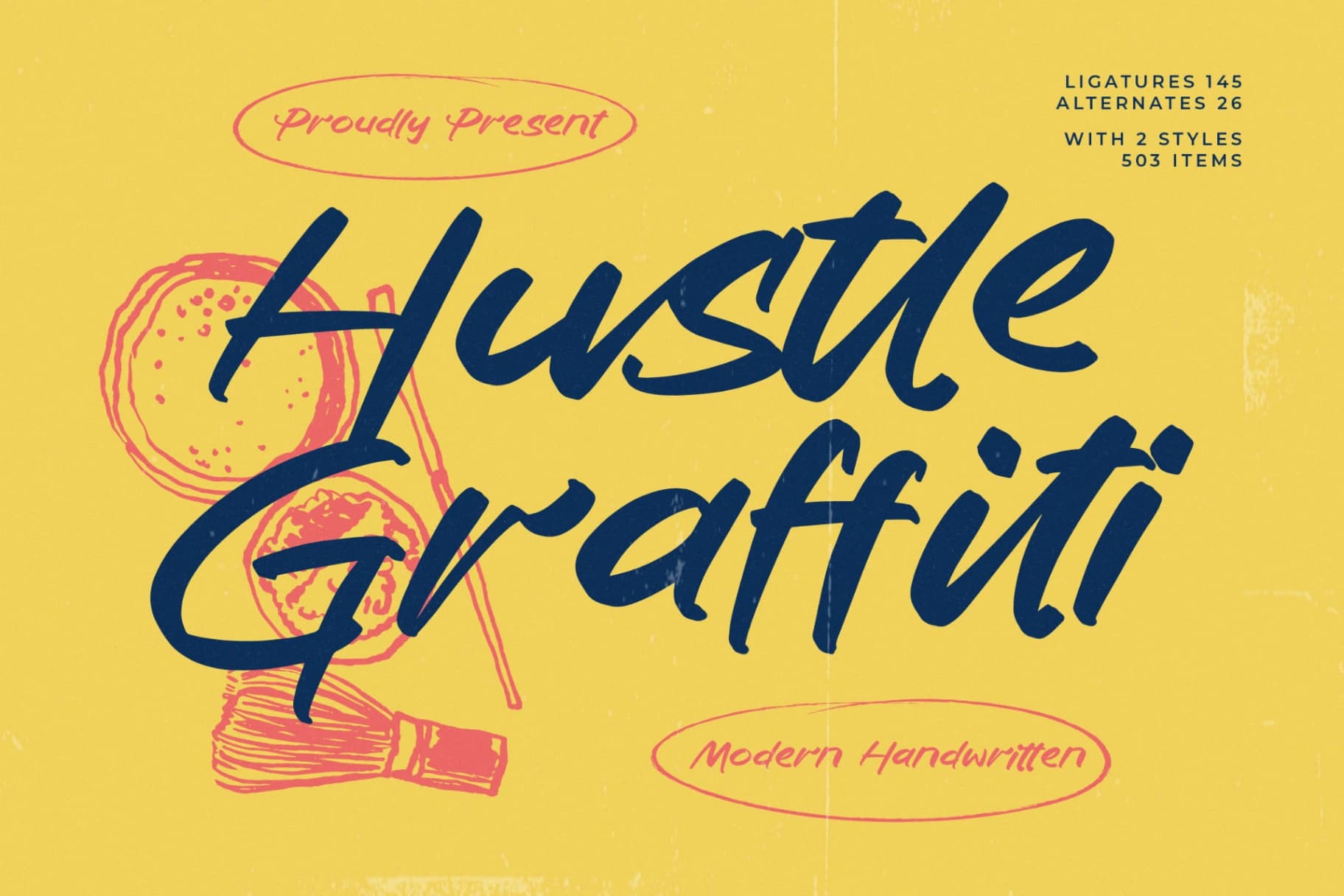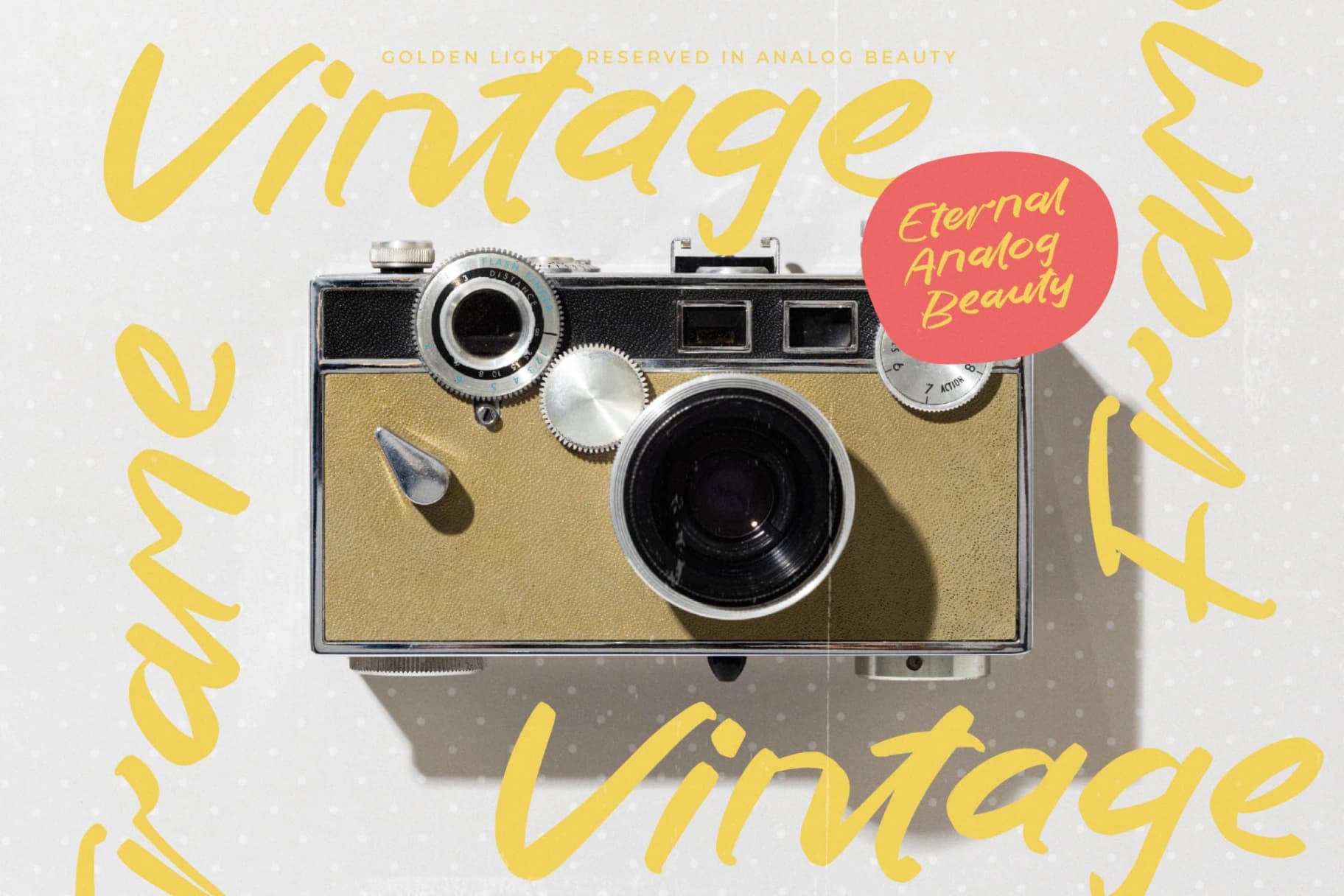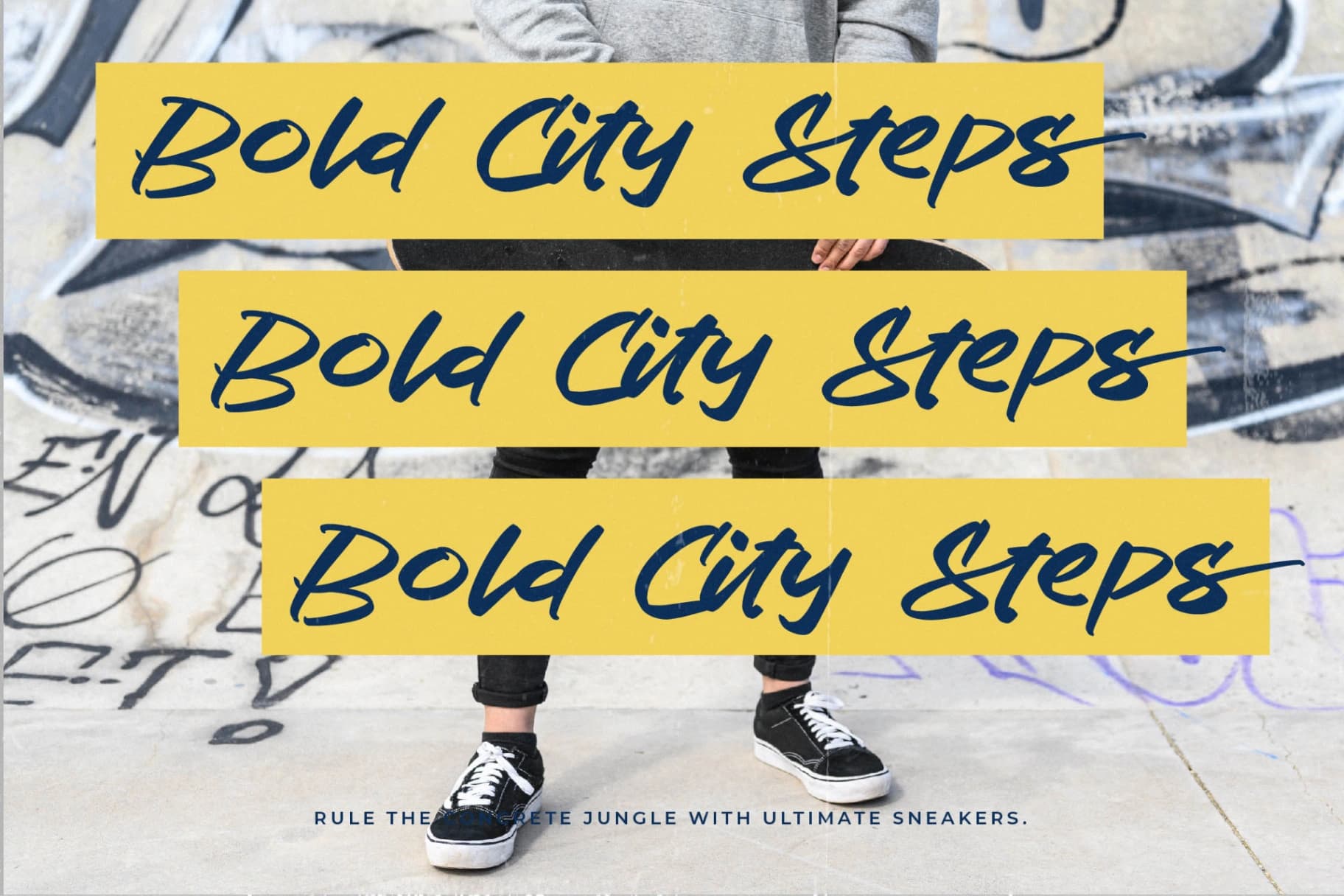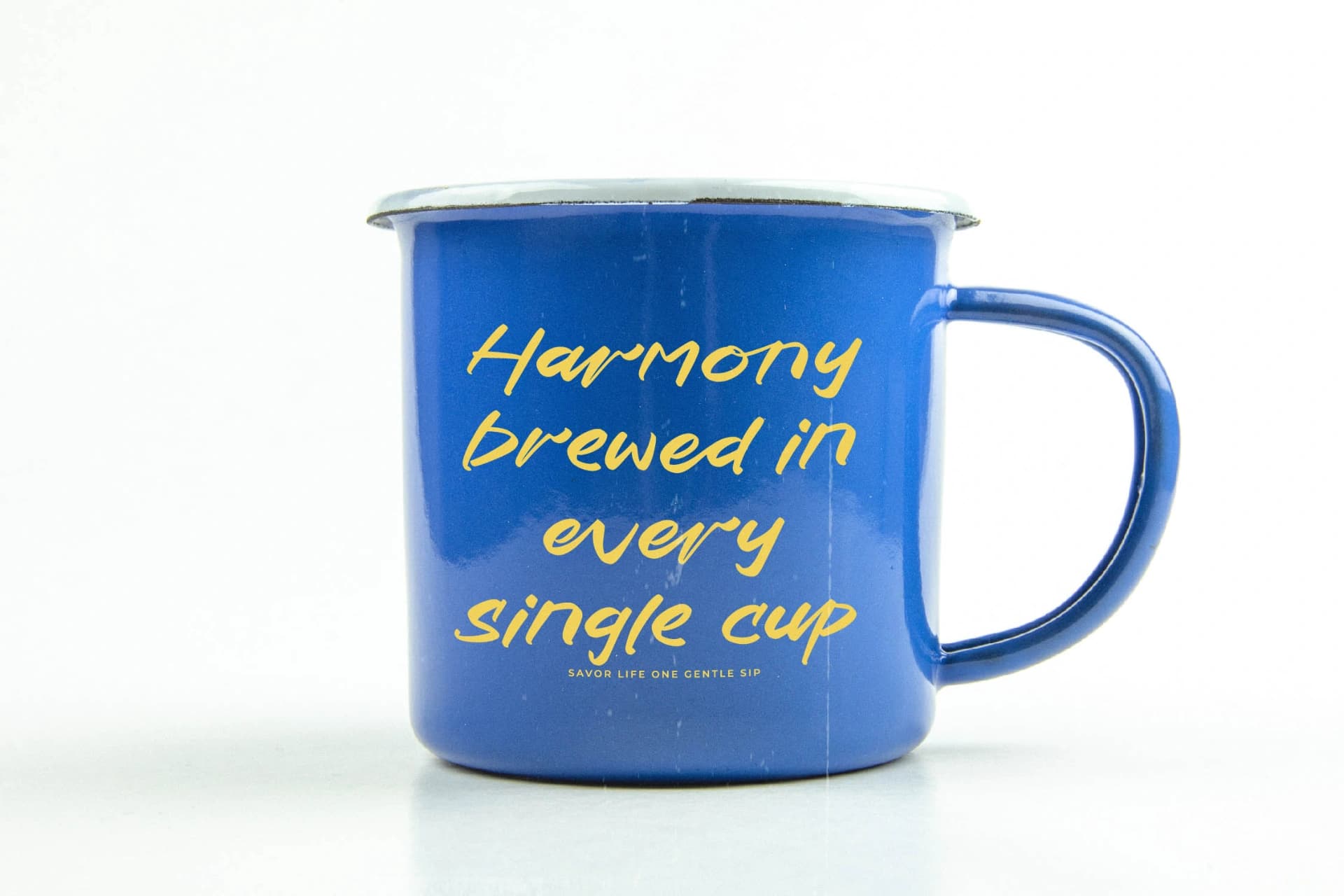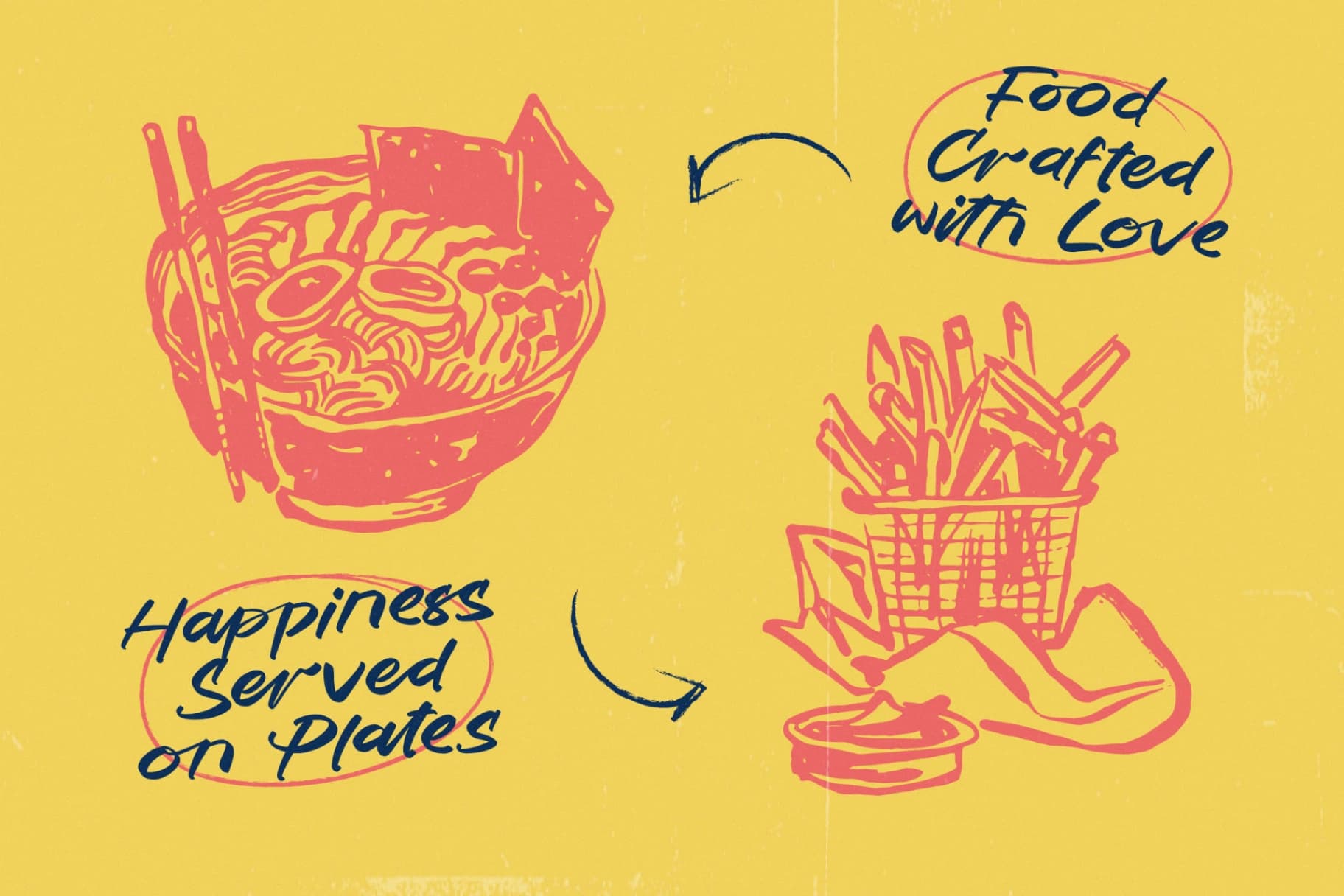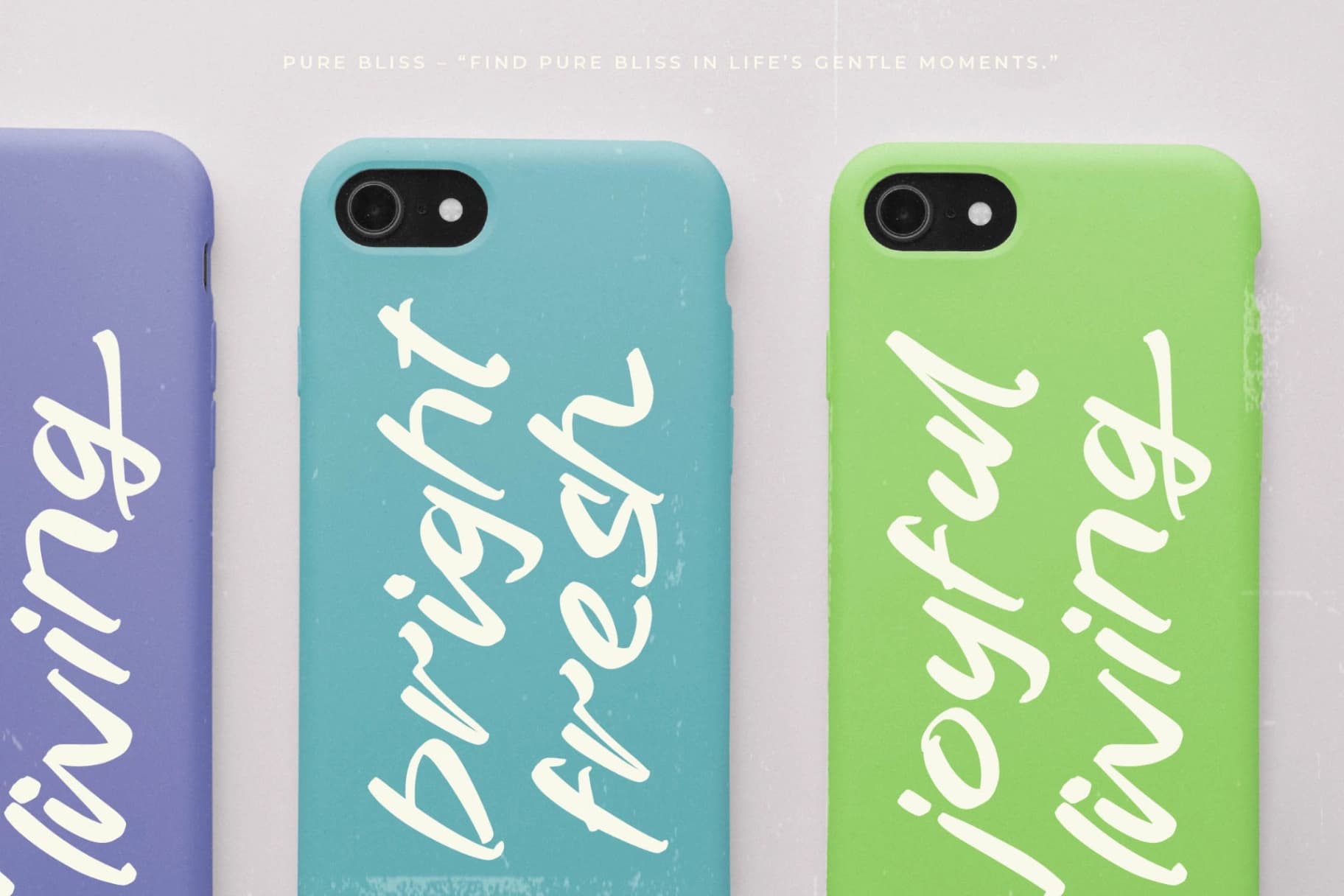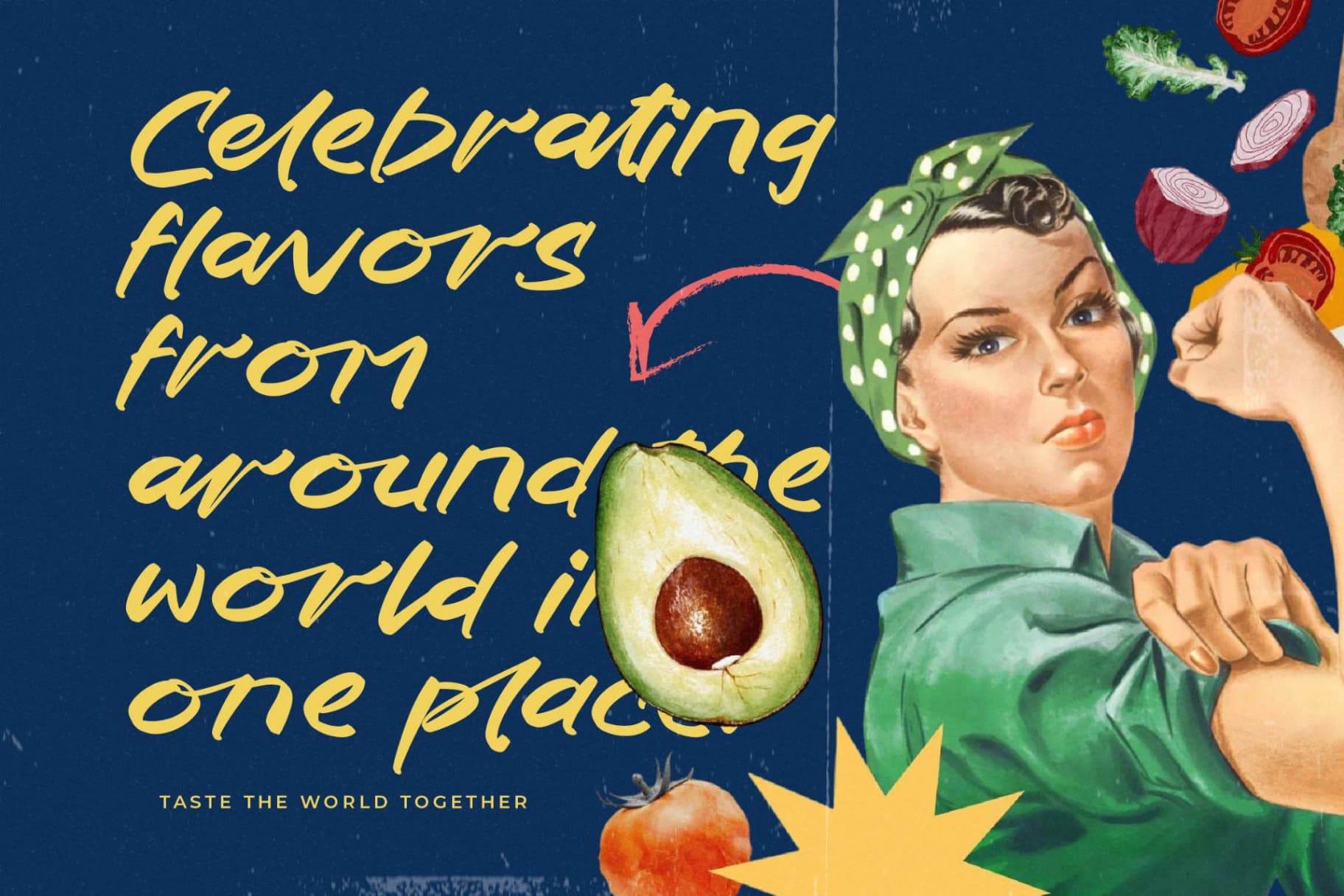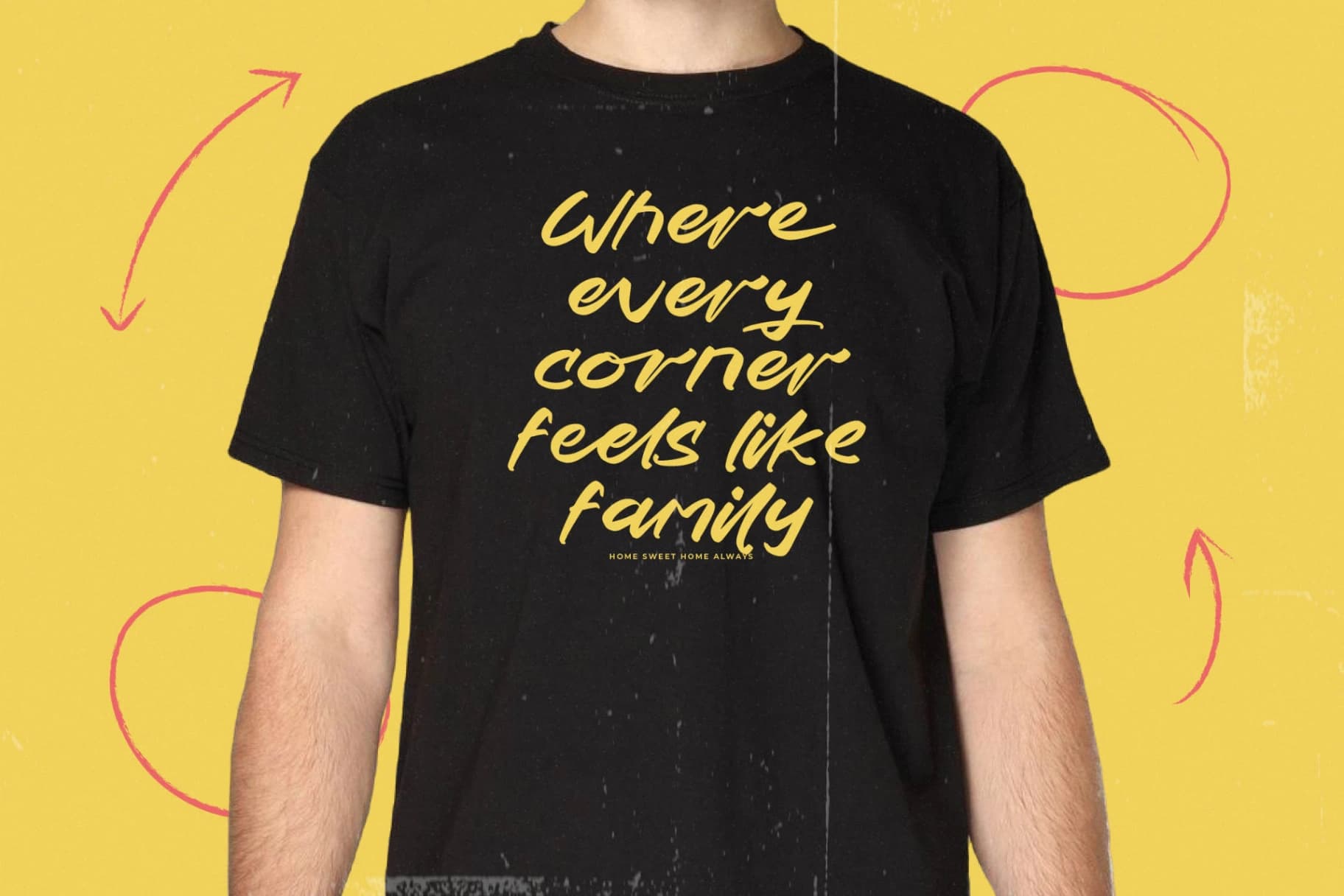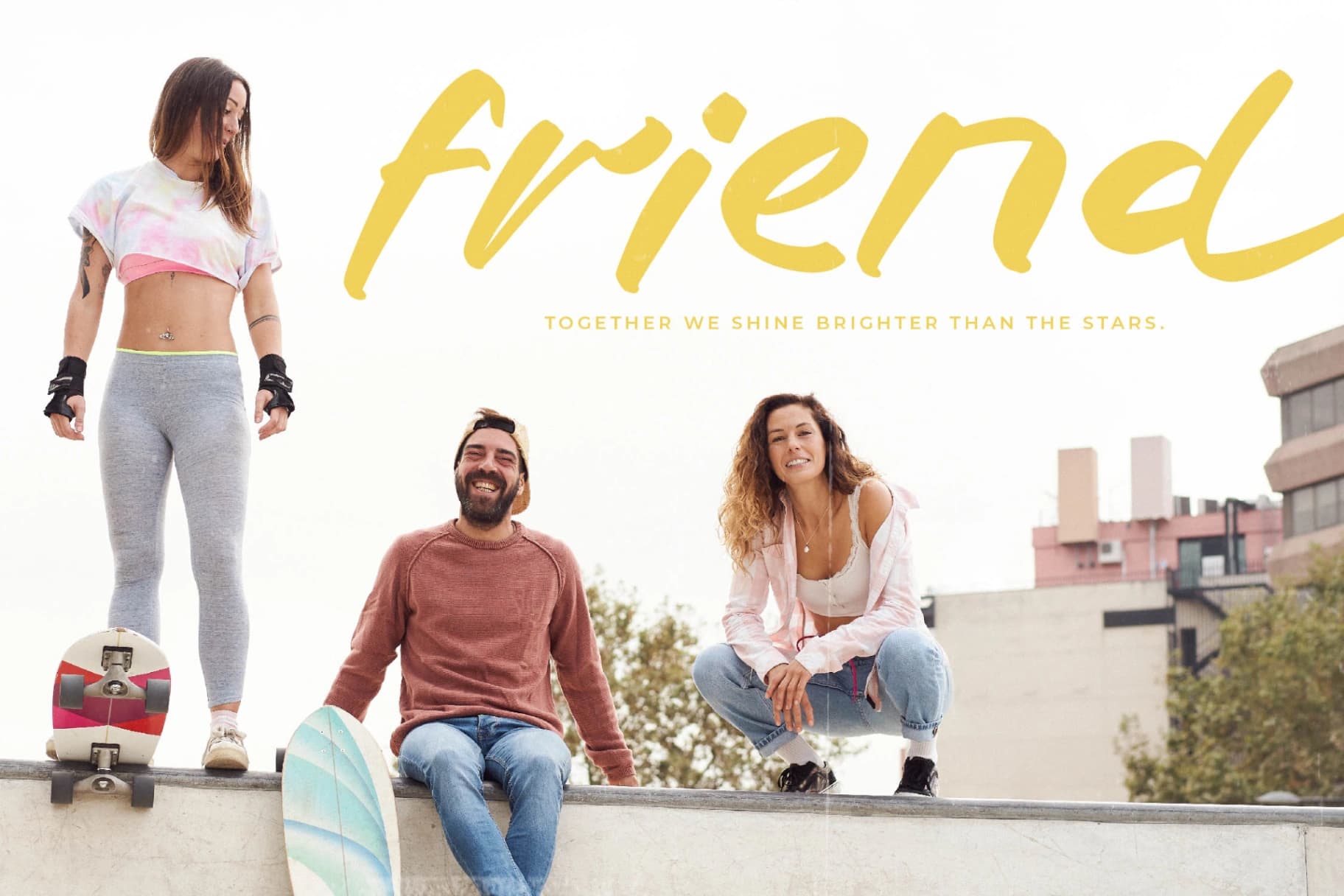
Hustle Graffiti - Modern Handwritten Font
Unleash your brand's true personality with the remarkably expressive Font Hustle Graffiti - Modern Handwritten Font Script. This dynamic typeface blends the raw energy of graffiti art with modern hand-lettering, creating an authentic, captivating visual statement. Its bold strokes and fluid connections imbue designs with a genuine, human touch, ensuring your message resonates with unparalleled impact.
Discover unparalleled design flexibility with the rich feature set of Font Hustle Graffiti - Modern Handwritten Font Script. Boasting 145 ligatures and 26 alternates across 2 distinct styles, this font provides over 500 unique items for truly custom typography. These extensive options empower designers to achieve a natural, handwritten look, adding sophisticated variations to any project.
Transform your creative vision into a global sensation using this incredibly versatile asset. Font Hustle Graffiti - Modern Handwritten Font Script is perfect for impactful luxury branding, engaging packaging design, striking editorial layouts, authentic merchandise, and captivating social media graphics. With its extensive multilingual support, Font Hustle Graffiti - Modern Handwritten Font Script adapts seamlessly across global markets, making it incredibly versatile for international projects.
Elevate your designs beyond the ordinary and make an indelible mark. This font isn't merely a typeface; it's a statement, offering a distinct blend of modern appeal and handwritten charm. Choose Font Hustle Graffiti - Modern Handwritten Font Script to inject an irresistible sense of originality and professional craftsmanship, ensuring your brand captures attention and leaves a lasting impression.